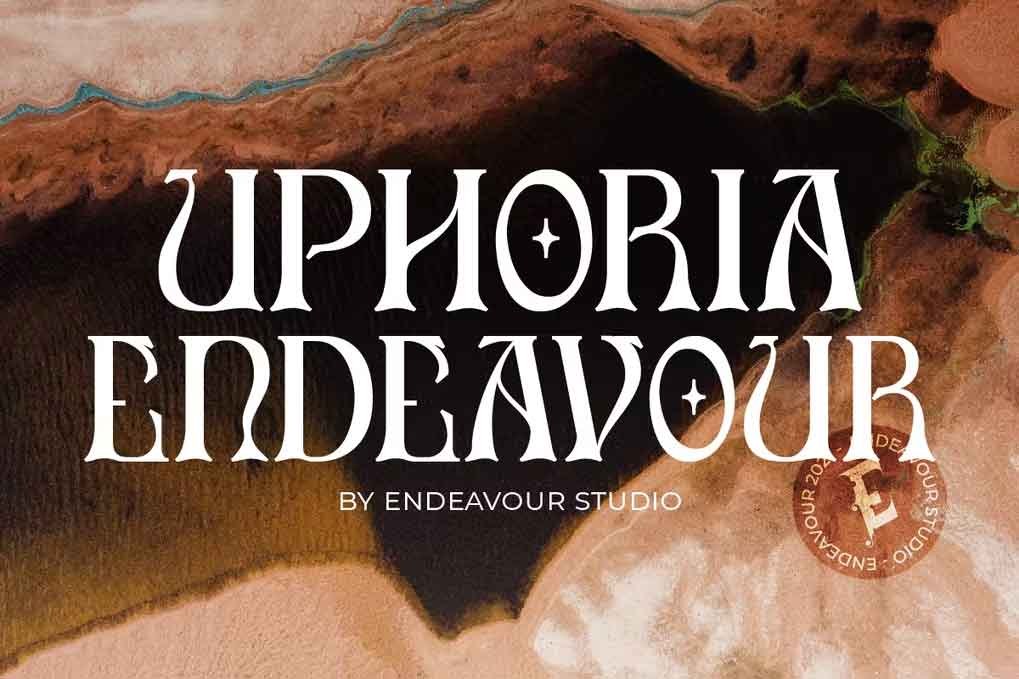
Uphoria Modern Serif Display Font
Uphoria is a modern serif display with a distinct curve that retains a serif sense along with each glyph. Experimental design, on the other hand, disregards design standards while retaining balance. Carefully created and developed, and appropriate for all design requirements.
Where Uphoria Modern Serif Display Font works best
Reports, white papers and book interiors hold the eye longer when the text face has real serifs; Uphoria Modern Serif Display Font keeps that rhythm without looking old-fashioned.
Food, spirits and cosmetics brands lean on serif wordmarks to suggest age and care. Uphoria Modern Serif Display Font gives that signal at wordmark size.
Set Uphoria Modern Serif Display Font for the body of an award or a diploma and keep the recipient name in a script; the pairing is what makes a document feel official.